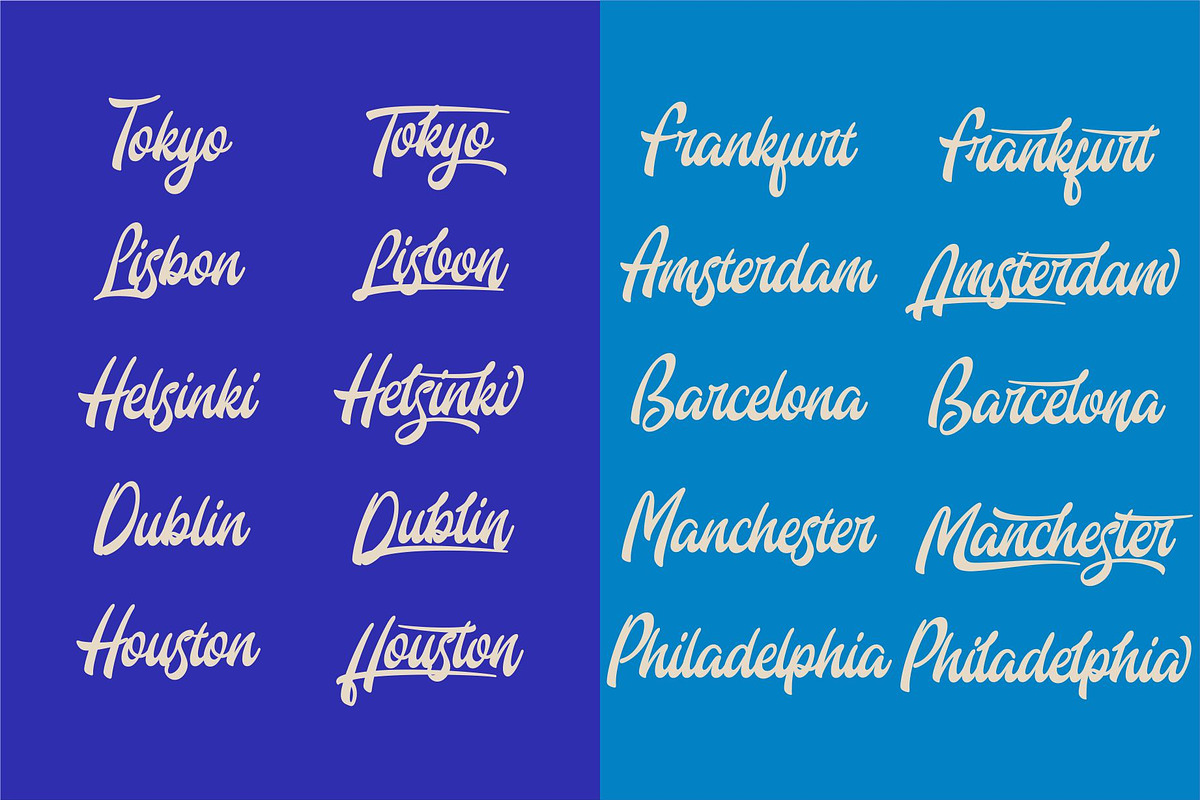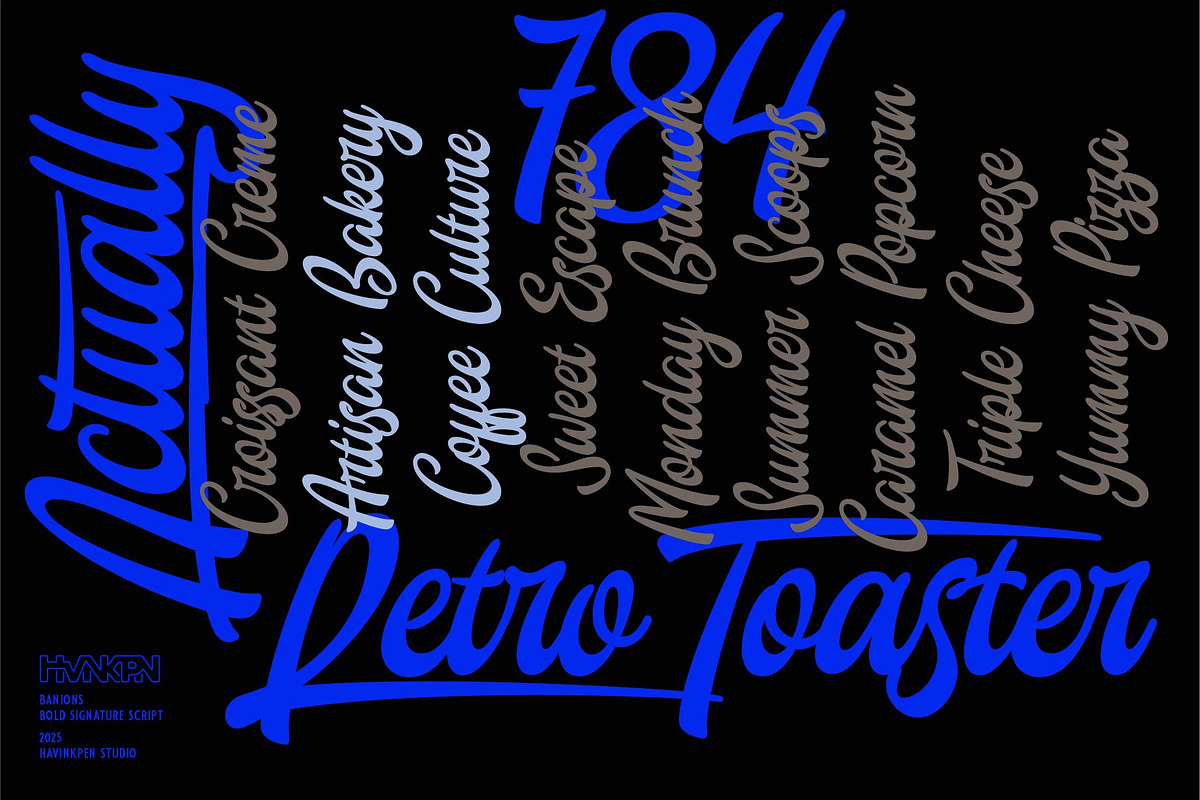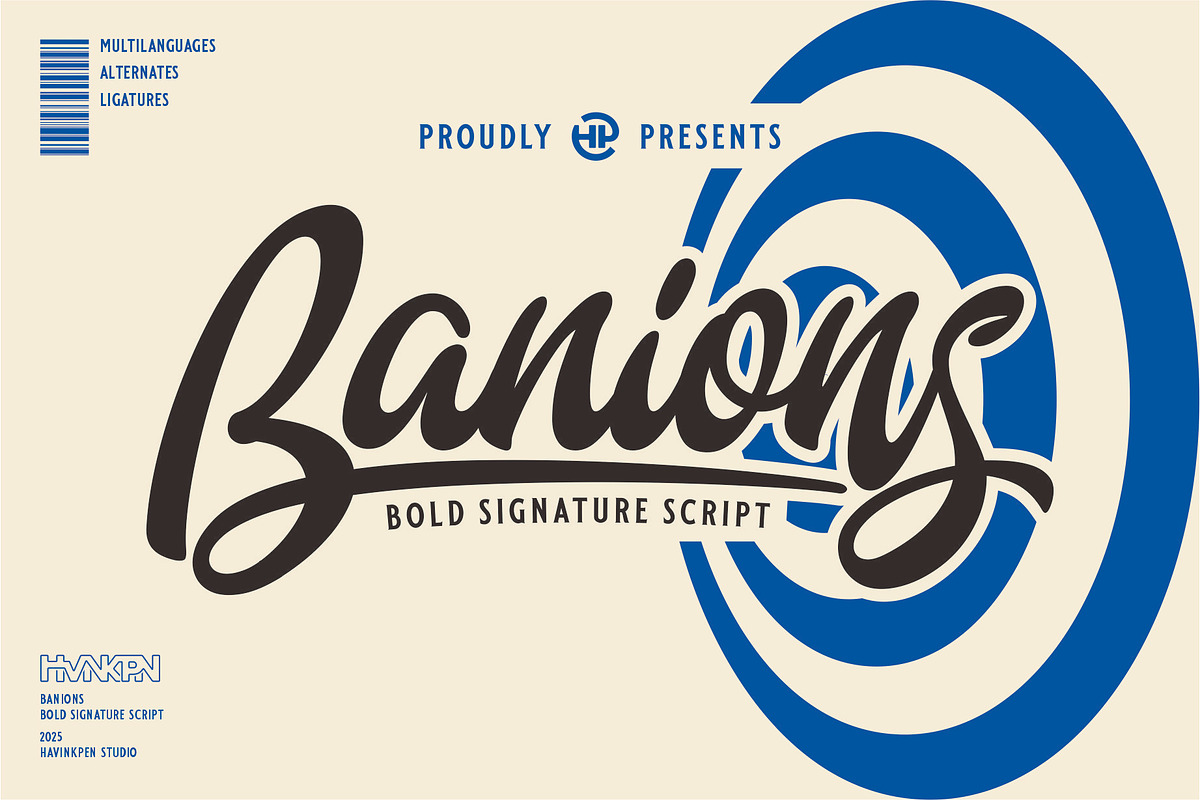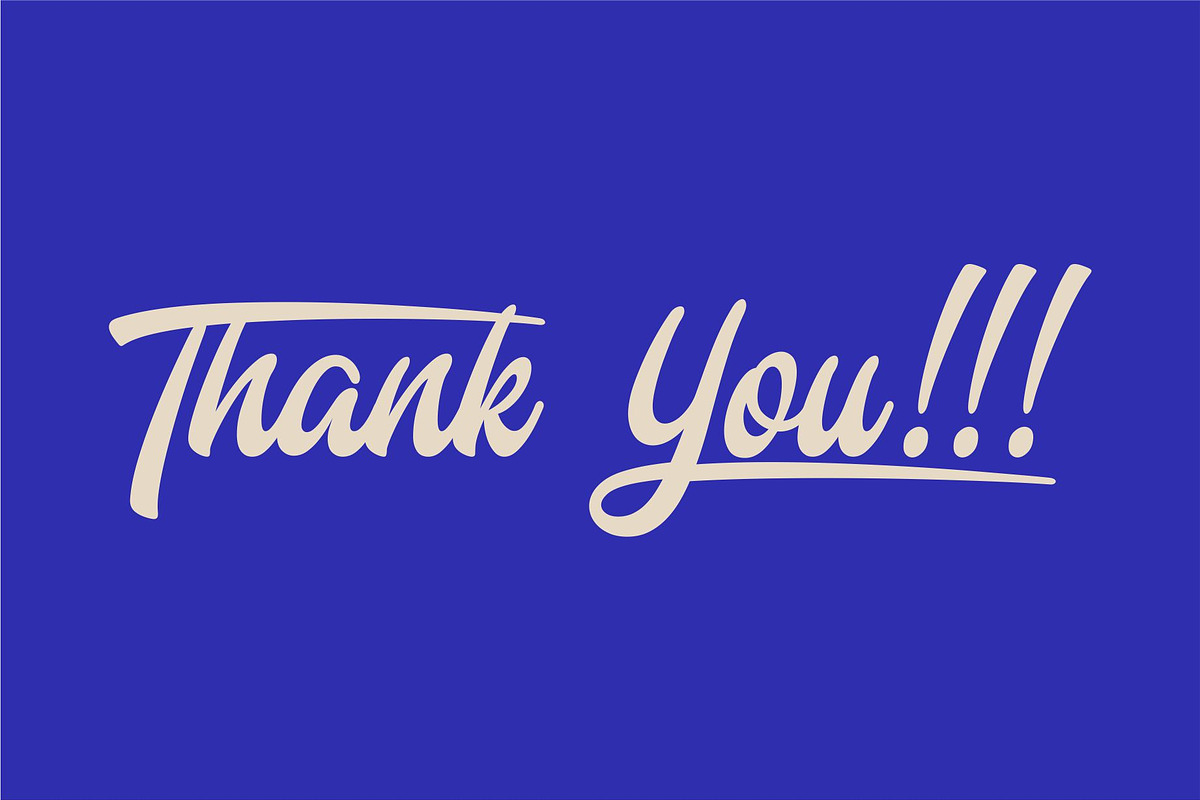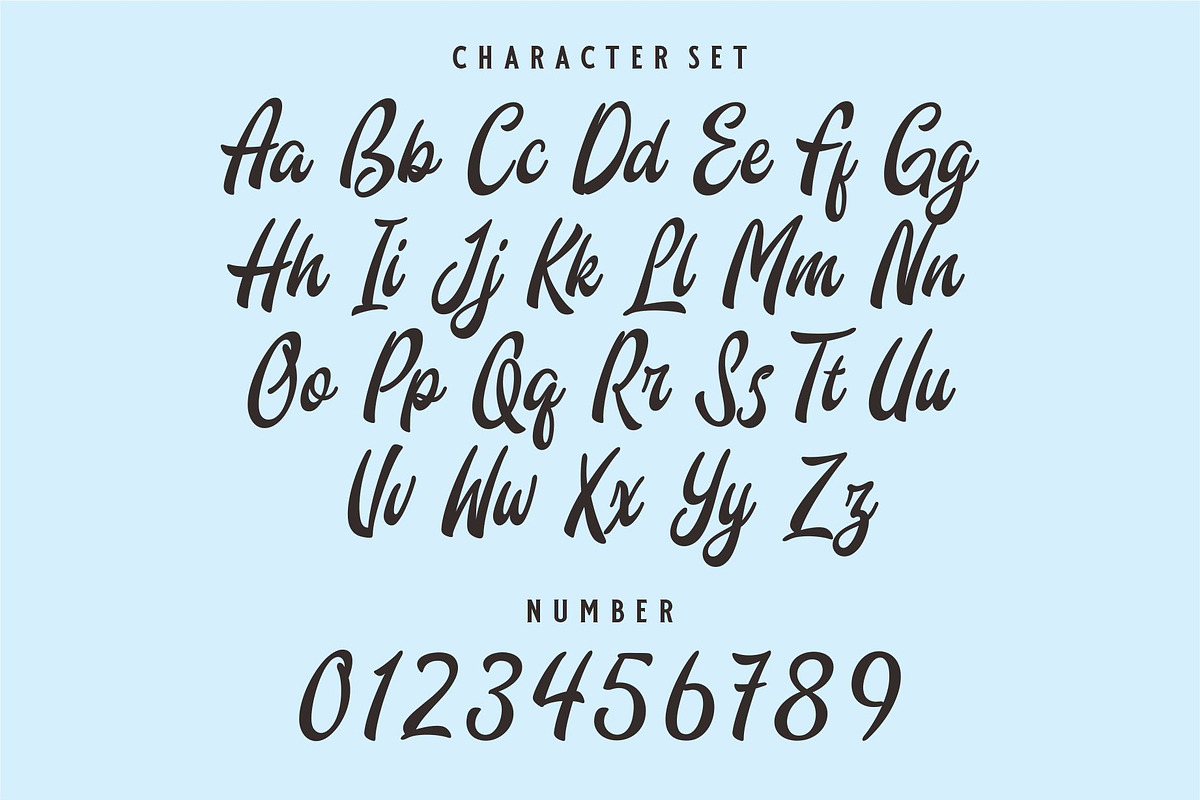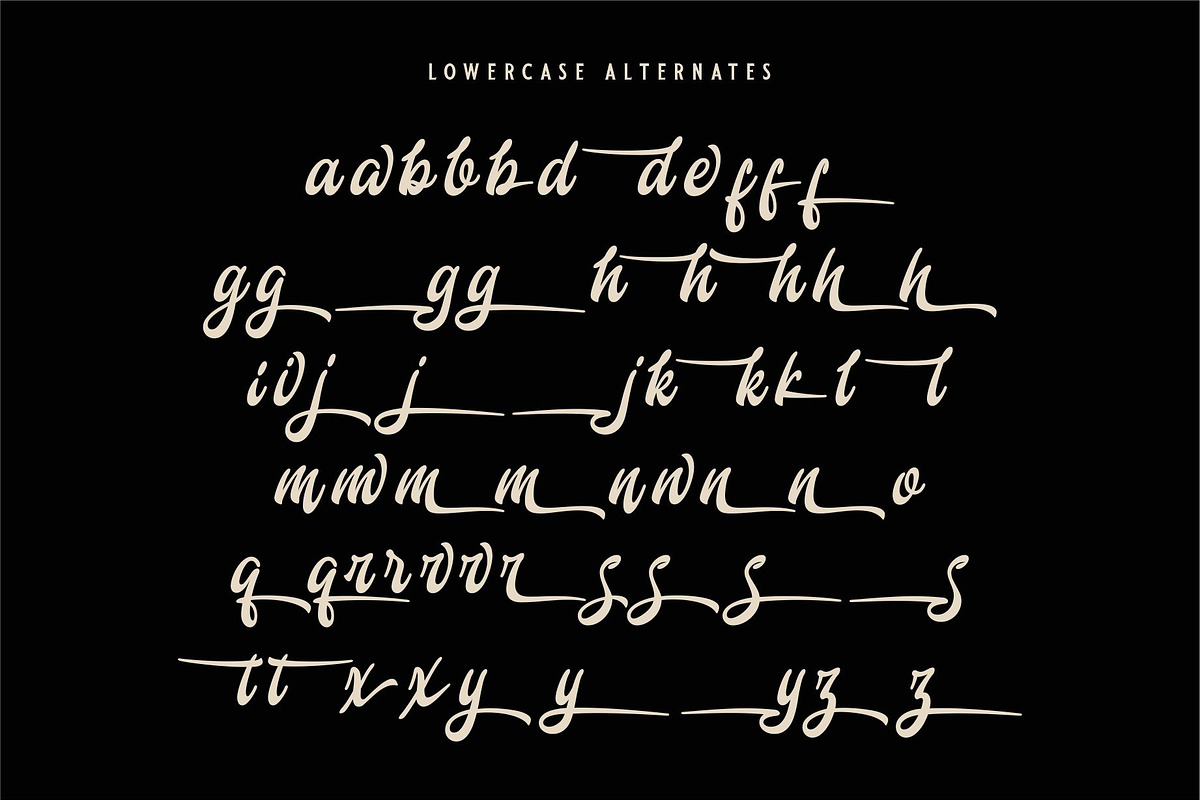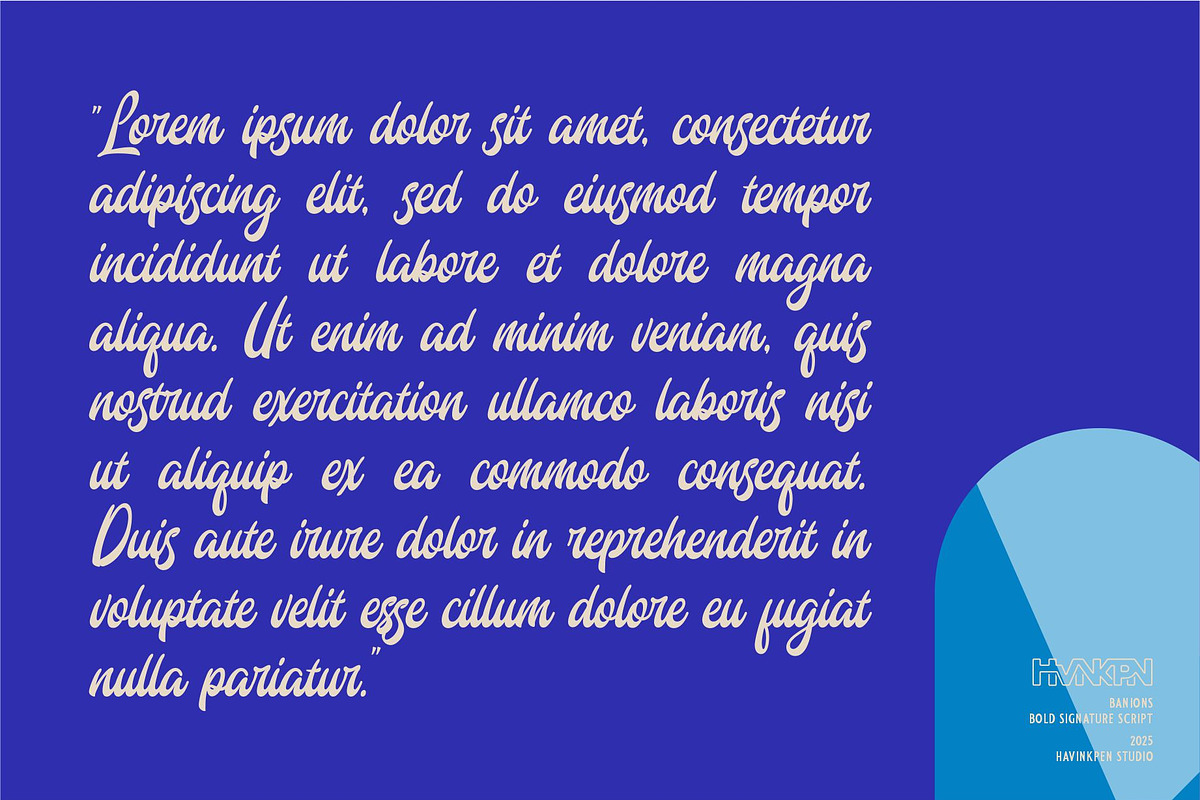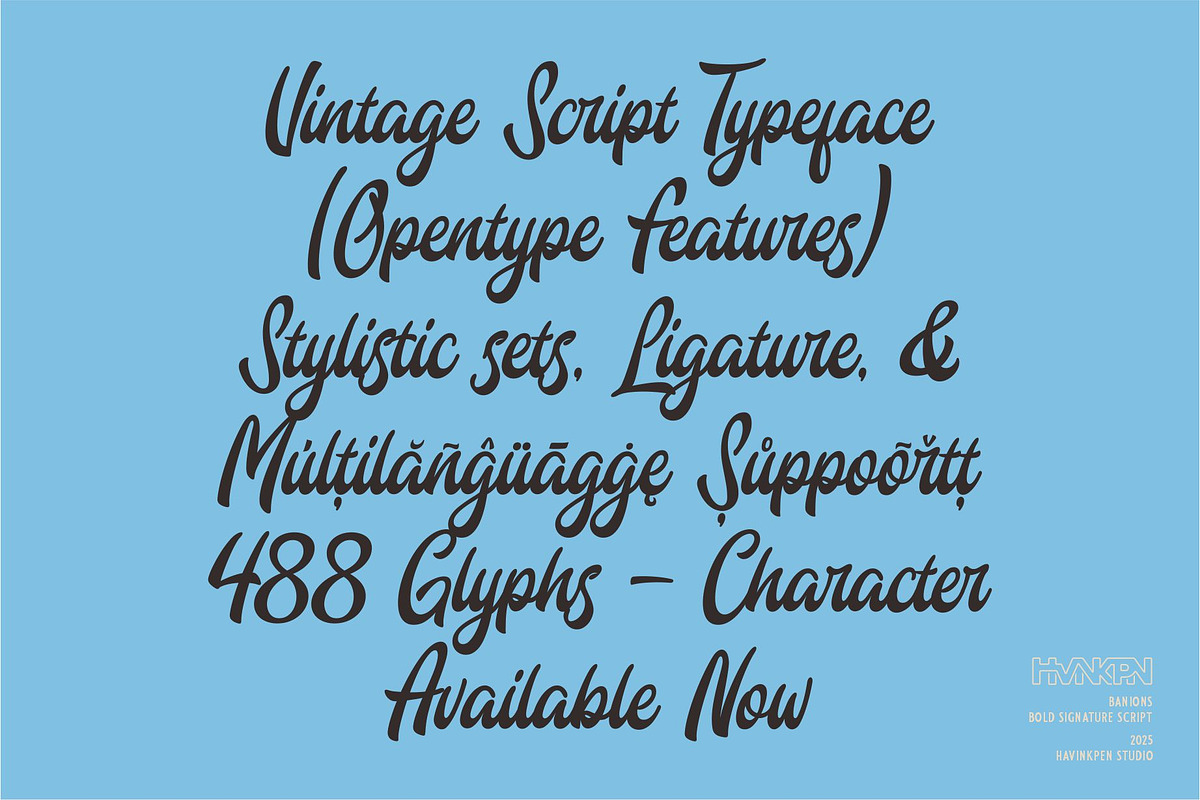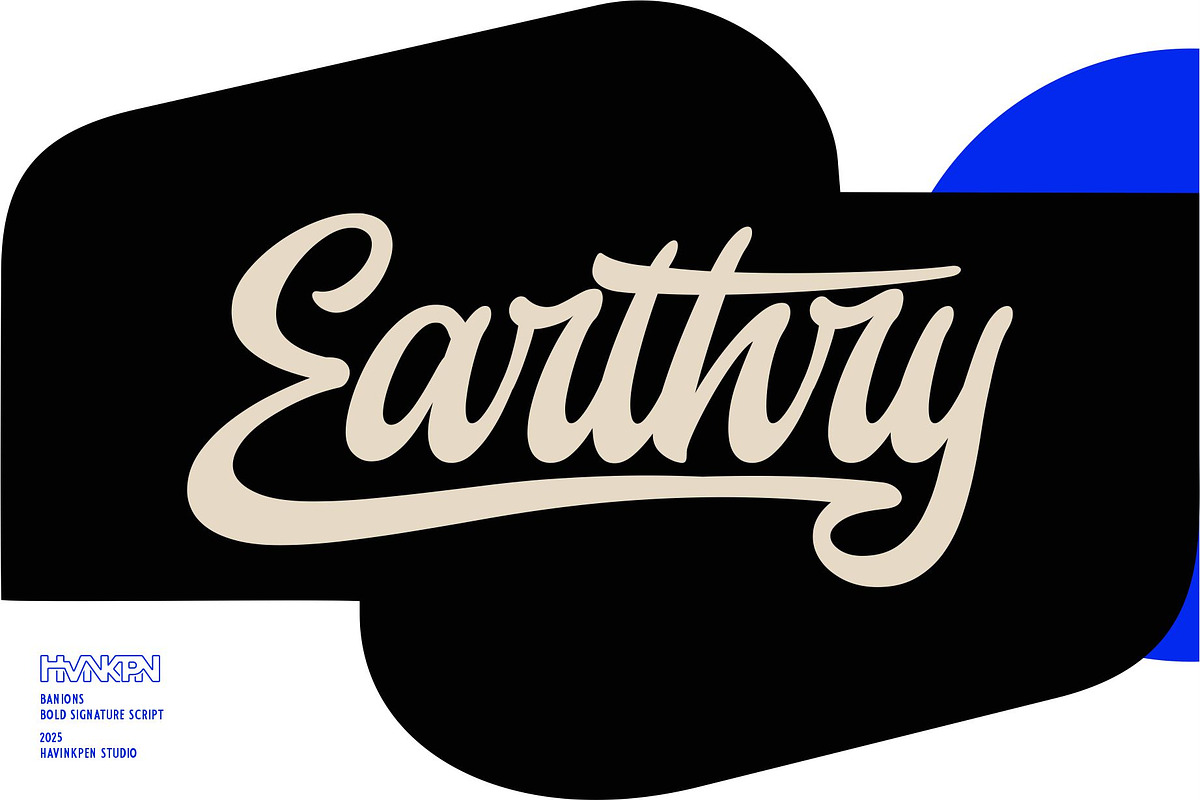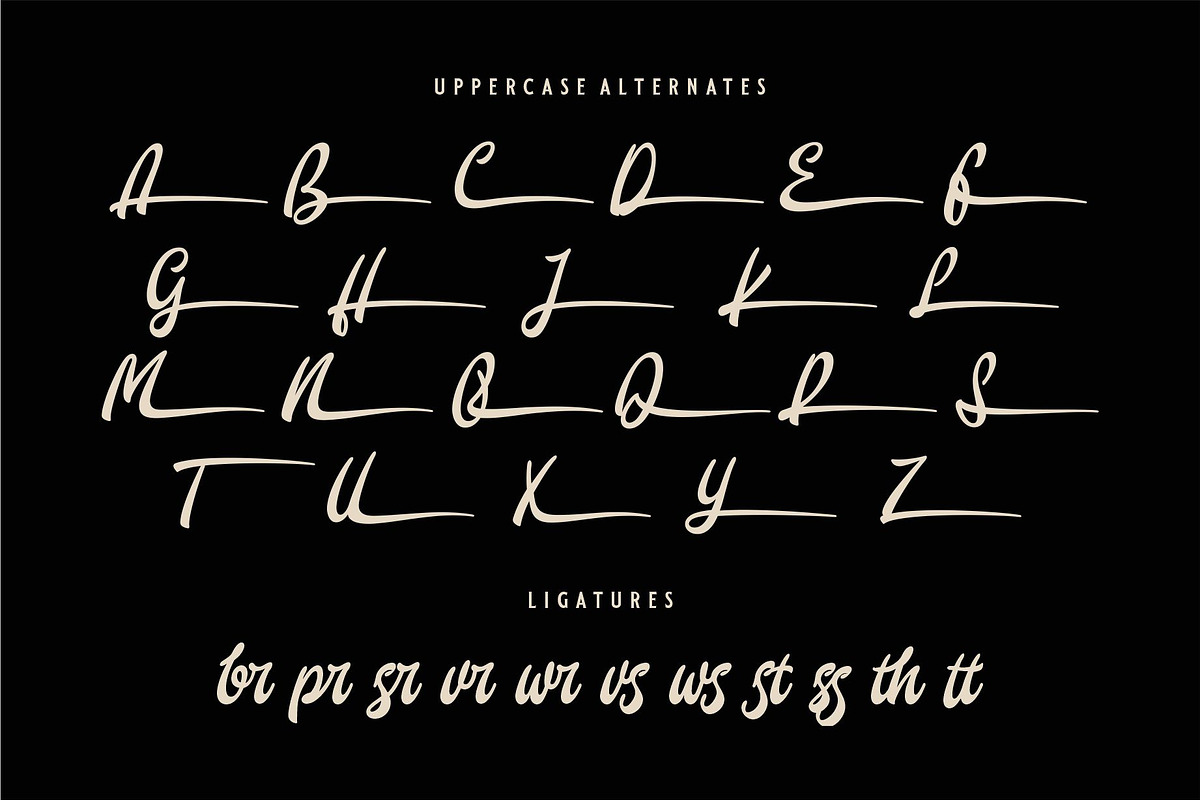
Banions | Bold Signature Script
Banions is a modern handwritten script font with a bold and elegant touch. Each letter is carefully crafted to create a dynamic, confident, and stylish look — perfect for giving your designs a strong personality and distinctive flair.
Logo & Branding Product Labels Posters & Quote Typography Invitations & Greeting Cards Merchandise & Apparel Design Social Media & Packaging